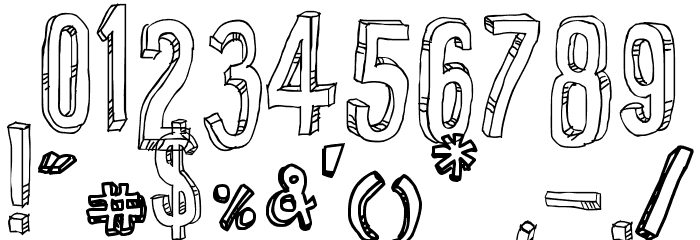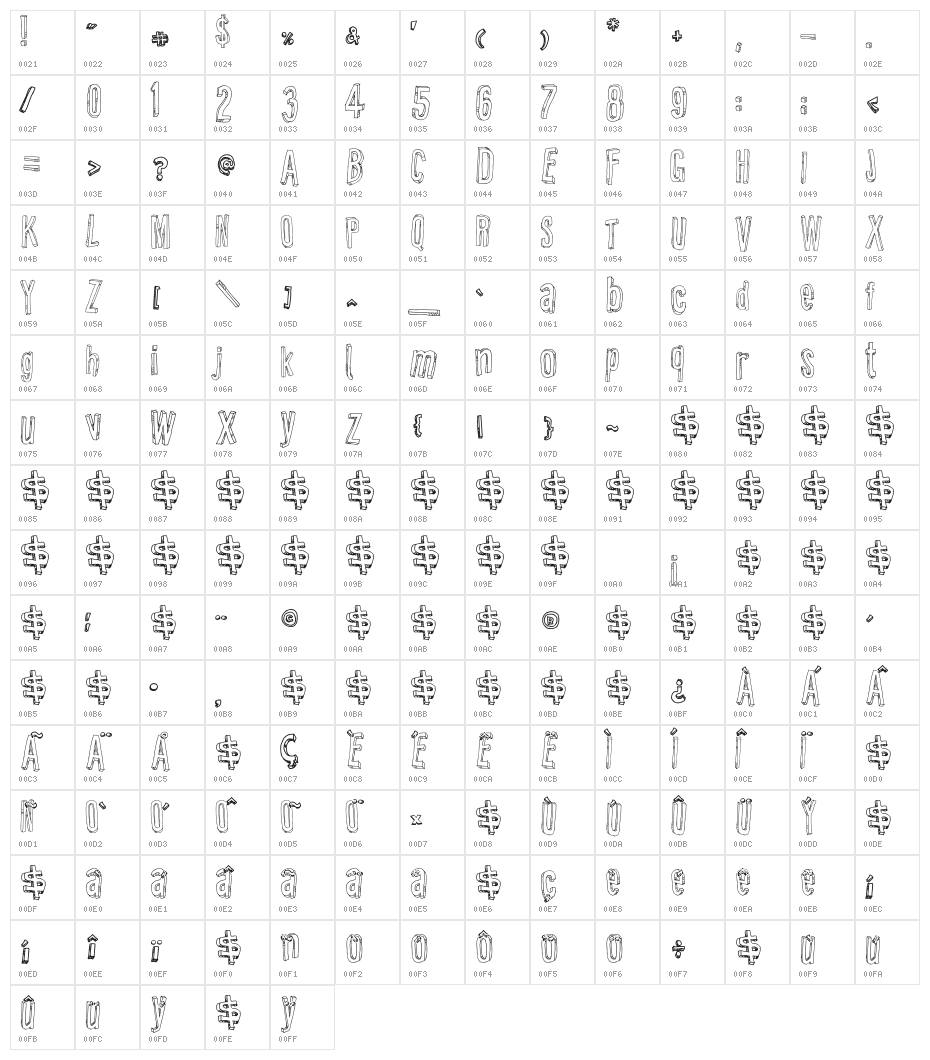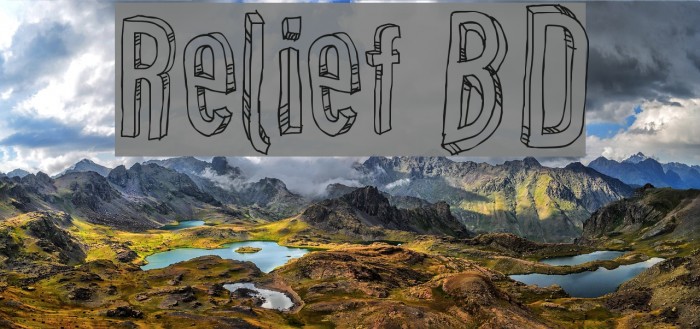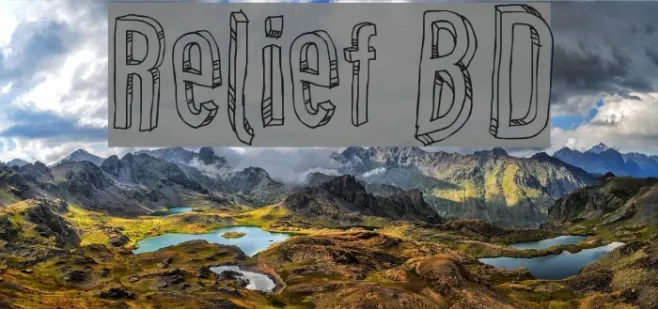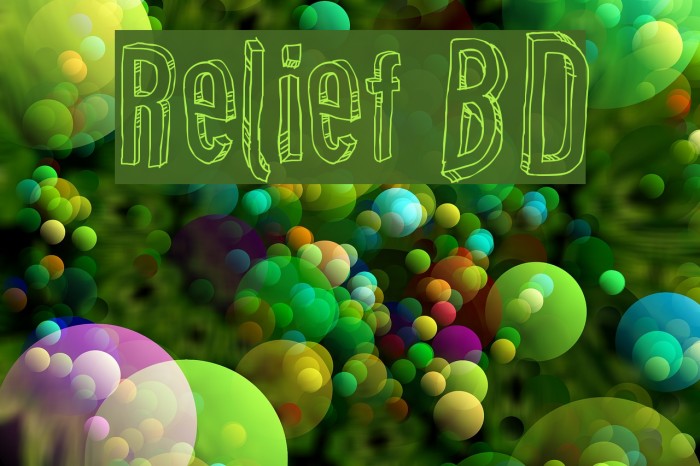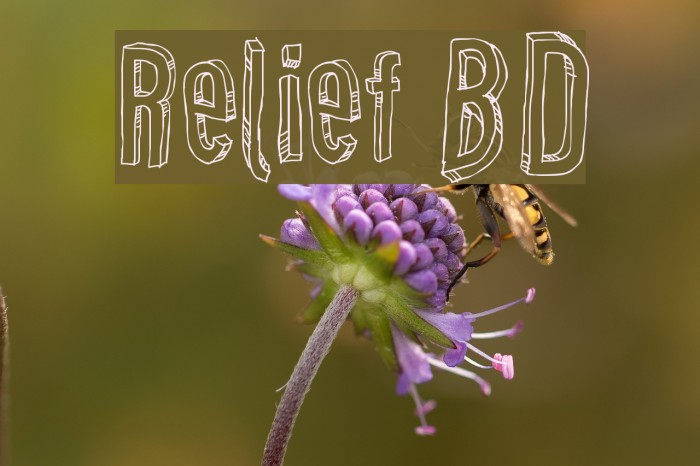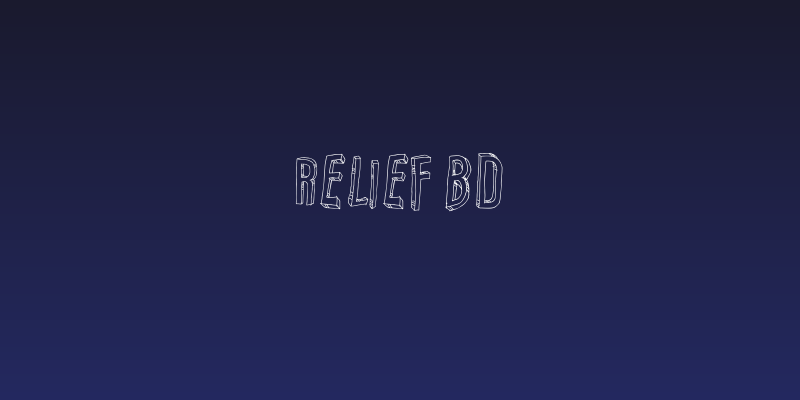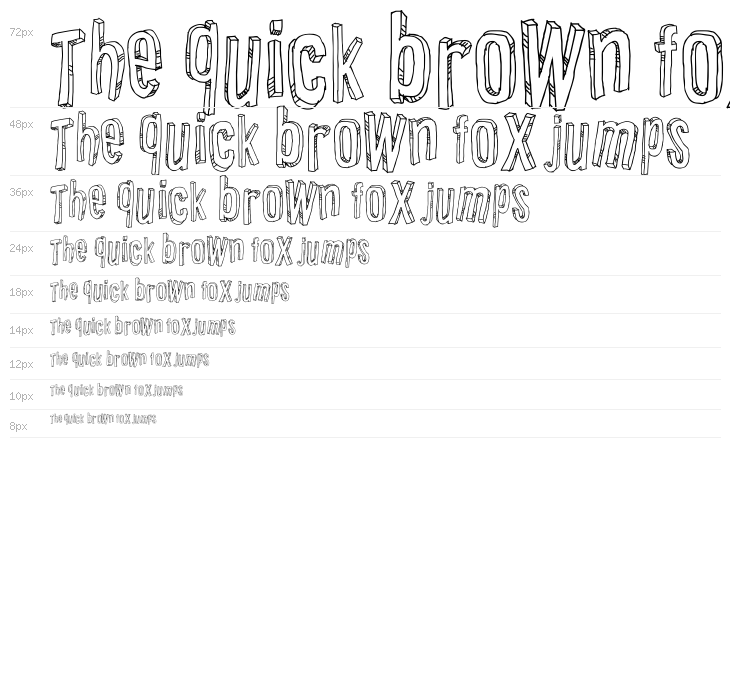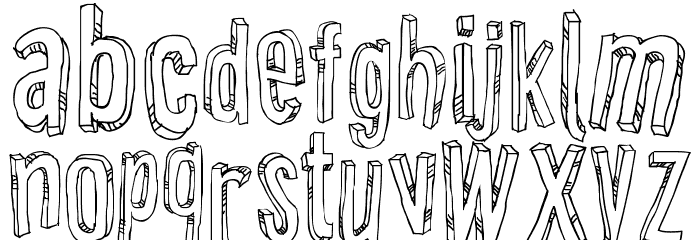
Relief BD Font
Relief BD Description
This font features a playful and artistic 3D effect, with each character outlined and shaded to create a sense of depth. The letters are bold and slightly irregular, giving them a hand-drawn appearance. The uppercase and lowercase letters maintain a consistent style, with the uppercase being more pronounced. Numbers and special characters follow the same design, ensuring uniformity across all glyphs. The font's unique style makes it stand out, ideal for creative projects that require a touch of whimsy and individuality.
| Proposed Projects | Ideal for posters, children's book covers, comic strips, and creative branding projects. |